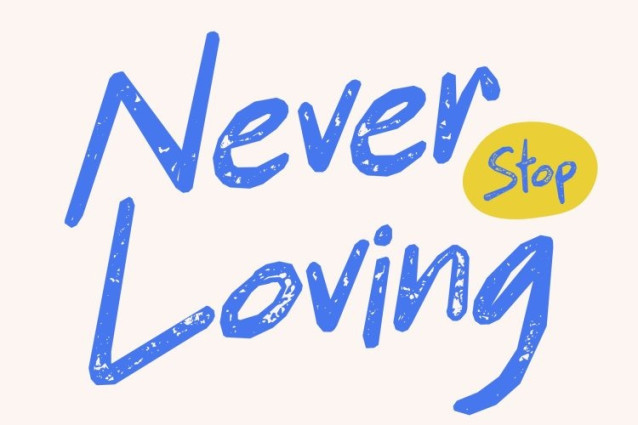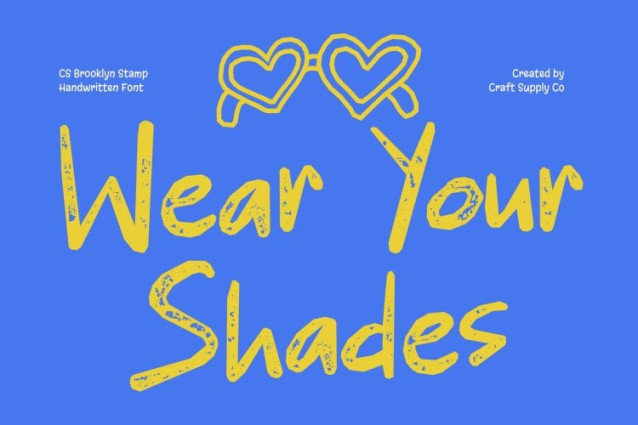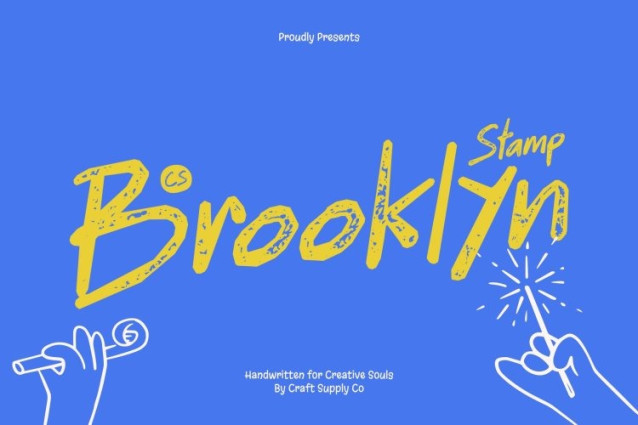
CS Brooklyn Stamp Font
CS Brooklyn Stamp Font – This is a carefree handwritten font that blends funky energy with a modern sans serif influence. Its relaxed strokes and effortless flow create a confident and creative personality, making it perfect for designs that aim to feel youthful, expressive, and full of life. The added stamped texture introduces a handcrafted quality that enhances its authentic and artistic feel.
Funky Flow for Playful Expression
Each line in this font moves naturally, forming a lively and spontaneous rhythm across words. The handwritten character adds warmth and personality, while balanced spacing maintains a clean and modern look. The subtle stamped texture enriches the letterforms with depth, reinforcing the font’s expressive and organic style.
Modern Twist for Trendy Designs
With its casual yet stylish attitude, this font captures the spirit of contemporary lifestyle design. Its playful curves combined with a textured finish give typography a cool and effortless appearance. This makes it especially suitable for social media graphics, influencer branding, and creative campaigns that celebrate authenticity and individuality.
Perfect for Youthful and Creative Projects
From lifestyle branding and apparel graphics to posters and digital content, this font shines in projects that prioritize personality and energy. Its combination of relaxed handwriting, funky rhythm, and textured detail ensures that every design feels dynamic, modern, and full of creative confidence.